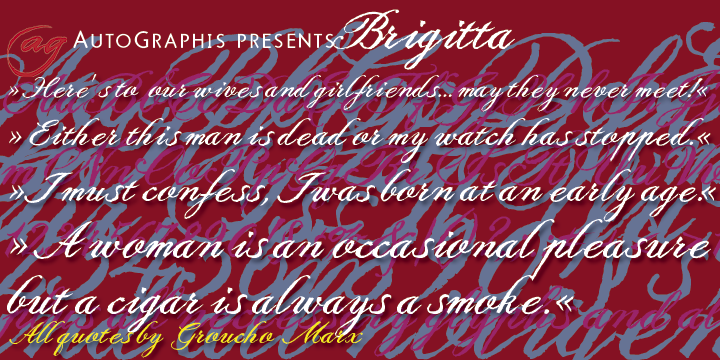
This graceful typeface is perfect for feminine brands, beauty salons, spa services, wedding planners, bridal boutiques, jewelry stores, luxury fashion labels, cosmetic packaging, elegant stationery, romance novels, personal coaching services, and sophisticated lifestyle brands. The font's refined design makes it ideal for projects that celebrate feminine elegance, personal empowerment, and the sophisticated grace of women who embrace their authentic beauty with confidence and timeless style.
Brigitta Font is exciting because it embodies feminine sophistication and graceful elegance through its delicate letterforms and refined character structure. The font's flowing curves and elegant proportions create an atmosphere of beauty, confidence, and sophisticated charm, making it perfect for brands that want to convey femininity, luxury, and the empowering appeal of authentic self-expression. Its graceful personality ensures instant elegance while maintaining excellent readability across various feminine applications.
The Brigitta Font family includes multiple elegant variations: Light Grace, Regular Beauty, Medium Charm, Bold Confidence, and Black Sophistication weights, each available in standard and script versions. Special feminine editions feature flourish alternates, beauty ornaments, and elegant symbols that enhance the font's refined appeal, providing designers with comprehensive tools for creating authentic femininity-focused communications.
Embrace sophisticated femininity with Brigitta Font Free Download – a typeface that represents graceful elegance and empowered beauty. Whether you're developing beauty branding, luxury marketing materials, or feminine lifestyle campaigns, this font delivers the refined presence and sophisticated charm your projects need while ensuring exceptional performance and elegant impact across all feminine and luxury applications.